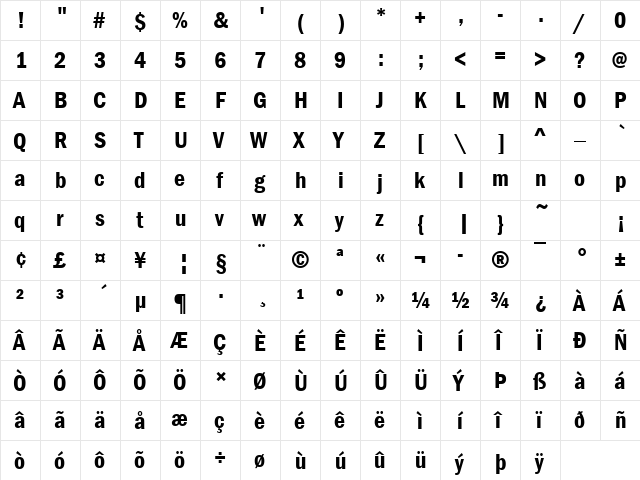
font153 Regular
Design Context for font153 Typeface
font153 offers clean, dependable letterforms without strong stylistic allegiance, making it a practical choice for designers who need flexibility.